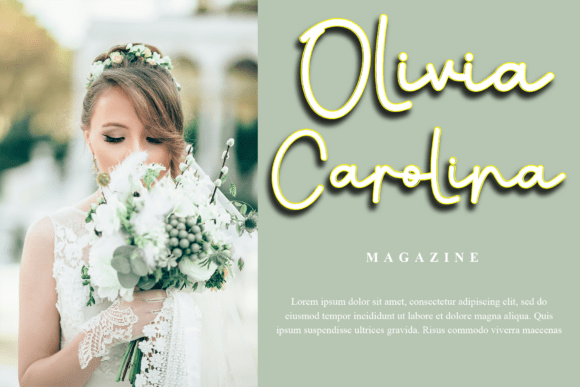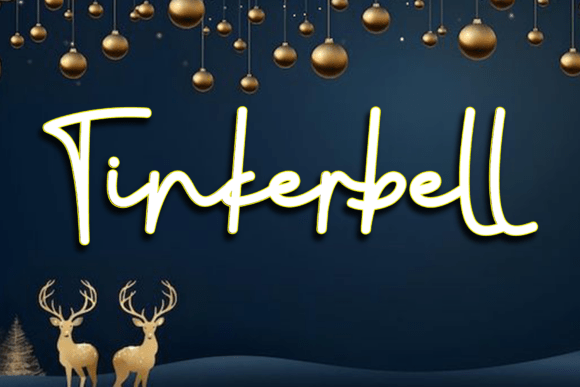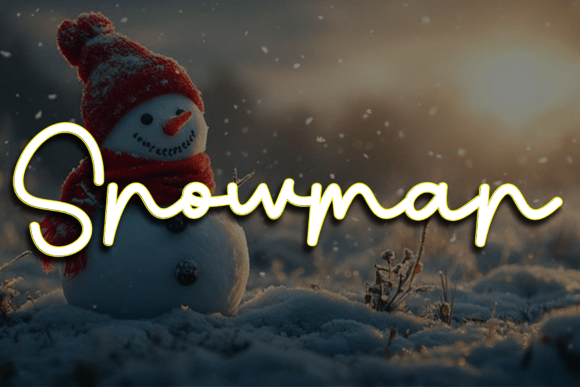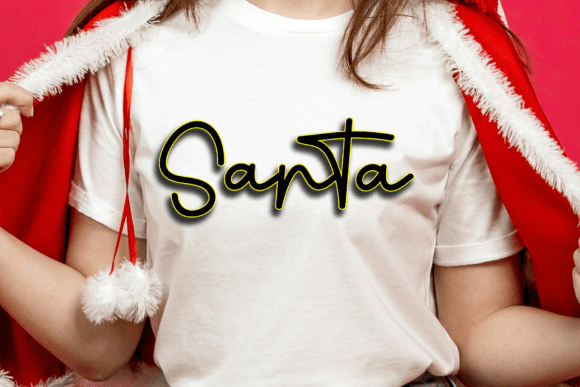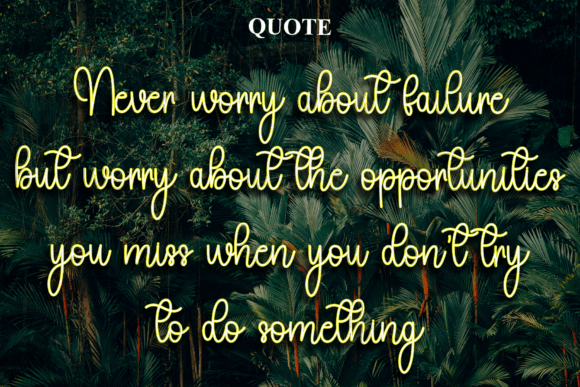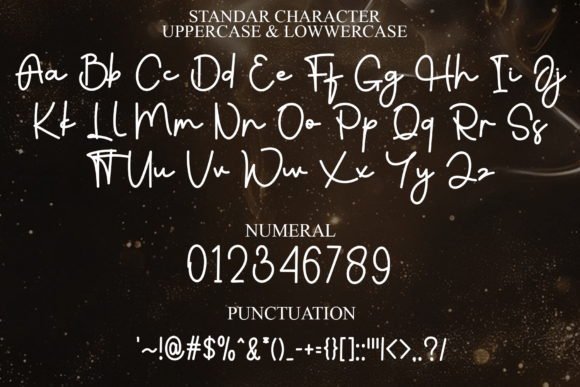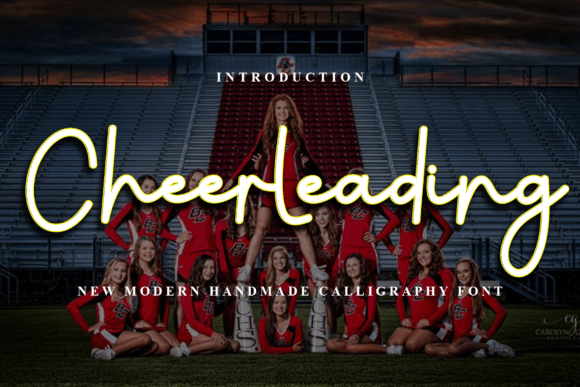
Introducing Cheerleading Font: The Ultimate Holiday Typeface
Are you looking for a font that embodies the spirit of the holiday season? Do you want to add a touch of magic to your designs and make them stand out? Look no further than Cheerleading Font, a festive and merry typeface that’s perfect for greeting cards, gift tags, and holiday-themed projects.
What Makes Cheerleading Font So Special?
Cheerleading Font is a decorative typeface that captures the whimsical and enchanting essence of the holiday season. Its unique design elements and ligatures add a touch of nostalgia and cheerfulness to your words, making it perfect for a wide range of design projects. Whether you’re a designer, crafter, or DIY enthusiast, this font is sure to become your go-to choice for holiday-themed designs.
Key Features of Cheerleading Font
- Decorative Elements: Cheerleading Font features intricate and decorative elements that add a touch of elegance and sophistication to your designs.
- Whimsical Flair: The font’s whimsical design elements and ligatures give it a playful and cheerful feel that’s perfect for holiday-themed projects.
- PUA Encoded: Cheerleading Font is PUA encoded, which means you can access all of the amazing glyphs and ligatures with ease.
- Wide Range of Uses: This font is perfect for a wide range of design projects, including greeting cards, gift tags, holiday-themed projects, and more.
Cheerleading Font is a versatile typeface that’s perfect for designers and crafters alike. Whether you’re creating digital designs or handmade crafts, this font is sure to add a touch of magic to your projects. Here are just a few ways you can use Cheerleading Font:
- Greeting Cards: Create beautiful and unique greeting cards for the holiday season with Cheerleading Font.
- Gift Tags: Add a personal touch to your gifts with custom gift tags featuring Cheerleading Font.
- Holiday-themed Projects: Use Cheerleading Font to create festive and fun holiday-themed projects, such as party invitations, decorations, and more.
Tips for Using Cheerleading Font
Here are a few tips for getting the most out of Cheerleading Font:
- Experiment with Different Sizes: Try using Cheerleading Font in different sizes to create visual interest and add emphasis to your designs.
- Combine with Other Fonts: Combine Cheerleading Font with other fonts to create a unique and eye-catching design.
- Use with Holiday-themed Graphics: Use Cheerleading Font with holiday-themed graphics, such as snowflakes, holly, and bells, to create a festive and fun design.
Cheerleading Font is a festive and merry typeface that’s perfect for adding a touch of magic to your designs. With its decorative elements, whimsical flair, and PUA encoding, this font is sure to become your go-to choice for holiday-themed projects. Whether you’re a designer, crafter, or DIY enthusiast, Cheerleading Font is the perfect choice for anyone looking to add a little cheer to their designs.